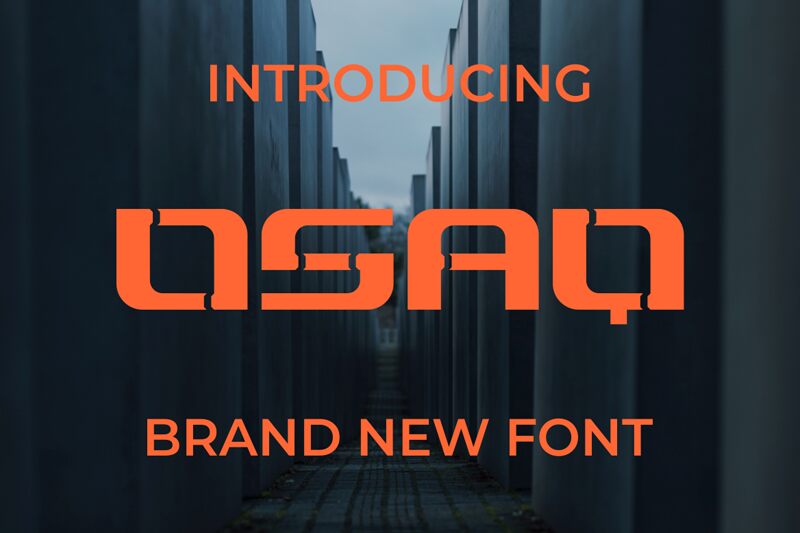
Osaq by Gilang Ternadho is a captivating display font that exudes a distinct techno-inspired aesthetic. The expanded letterforms and angular contours create a bold, futuristic impression, making this font an eye-catching choice for a range of digital and print applications. Osaq's expansive character set and versatile design lend themselves seamlessly to attention-grabbing headlines, impactful logos, and dynamic branding collateral, infusing any project with a striking technological edge.
This versatile font can elevate a diverse array of design projects, from sleek user interfaces and dynamic event promotions to captivating editorial layouts and cutting-edge product packaging. Osaq's unique blend of techno-influenced style and expanded character width ensures it stands out in both digital and physical mediums, making it a versatile tool for designers seeking to craft memorable, high-impact visual experiences.